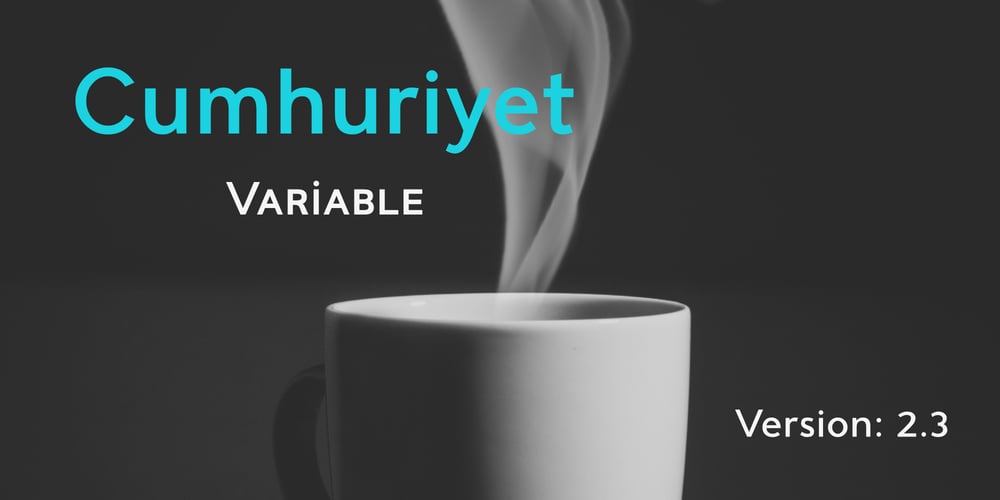
Cumhuriyet VF Font Family was designed by İsmail AYDIN and published by Fontuma. Cumhuriyet VF contains 1 styles and family package options. Cumhuriyet VariableCumhuriyet means “form of government based on the sovereignty of the nation”. The reason why I gave this name to the font is that 2023 is the hundredth anniversary of the Republic of Turkey, founded by Atatürk. Cumhuriyet Variable includes weight, width and slant axes. The Weight values of the font are between 200-800, and the Slant axis is between 0-12. In addition, Cumhuriyet Variable has the feature of narrowing and expanding from the narrowest to the widest between UltraCompressed and ExtraExpanded, thanks to the width axis it contains. These features of the font are provided by 112 instances. Accordingly, the Cumhuriyet Variable font has the ability to display variable behavior that can be expressed in millions, due to its three axes. Cumhuriyet Variable, a geometric font, includes all the innovations and improvements that the Cumhuriyet font has gained in its second version. In this context, Cumhuriyet Variable includes regulations in terms of the space between letters (kerning), the space between words (tracking) and the space between lines (leading). In addition, the font has been given a more stable and aesthetic structure thanks to the renewed designs and settings of most glyphs, especially Arabic fonts. Cumhuriyet Variable also includes many opentype features: They can be listed as follows:● Slashed zero● Stylistic alternatives for the letters a, g and l● Character variation for eleven individual Latin letters● Old style● Proportional● Tabular● Numerator● Denominator● Fraction/Alternate fraction● Ordinal (a-z)● Small capital● Petite capitalCumhuriyet Variable offers multi-purpose usage opportunities, especially in printed products, media and digital environments, and is suitable for use in all areas that are subject to writing. As Fontuma Foundry, we actually designed not this user-friendly font, but the happiness and comfort you will feel when pressing the keyboard keys.